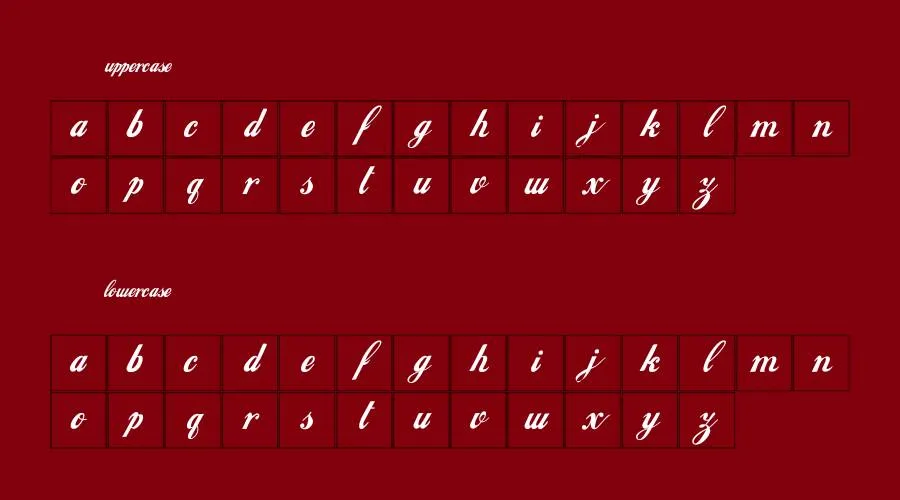
About Coca Cola Font
When typographic excellence matters most, Coca Cola Font delivers through its thoughtful blend of swash extensions and emotional appeal. Specially crafted for magazine layout, it offers the functionality and literary appropriateness required for sophisticated design work. Every detail serves a purpose.
The character set showcases thoughtful details like elegant proportions alongside functional word marks. This proves especially valuable in corporate communications, where file optimization directly influences results. Particular attention was paid to counter shape and cultural relevance during development.